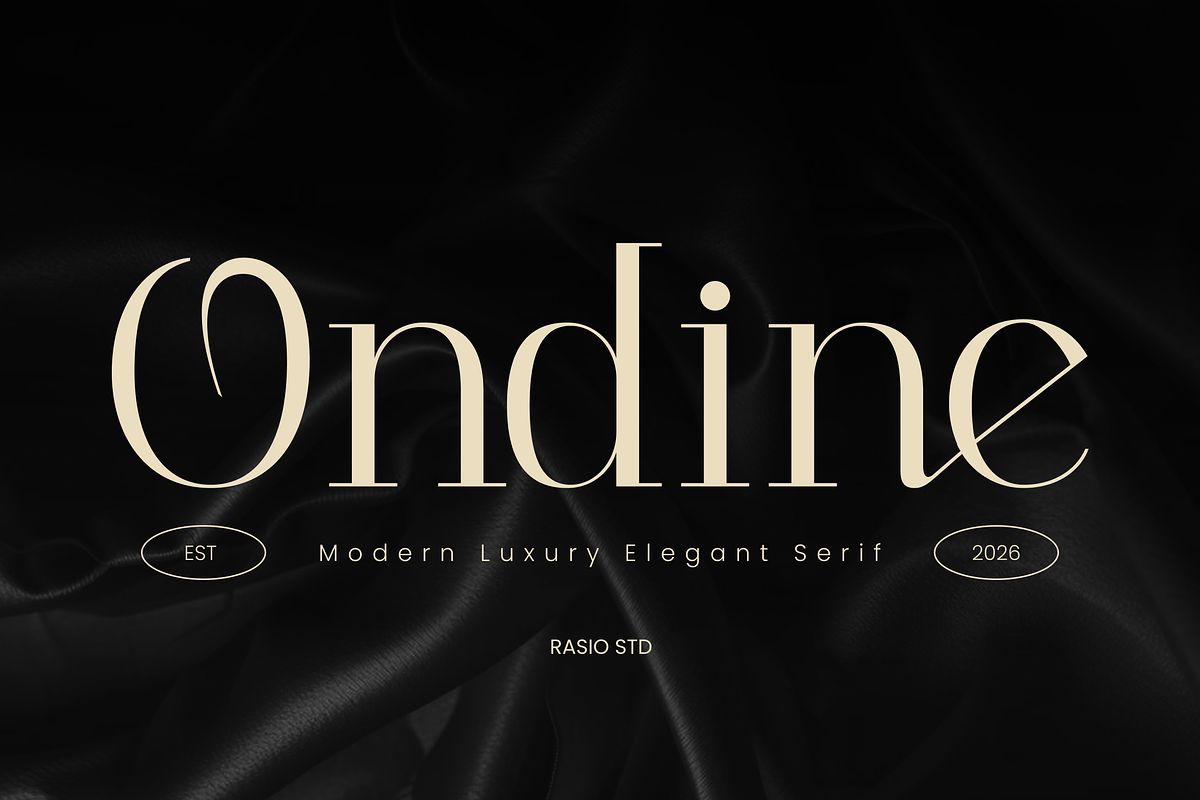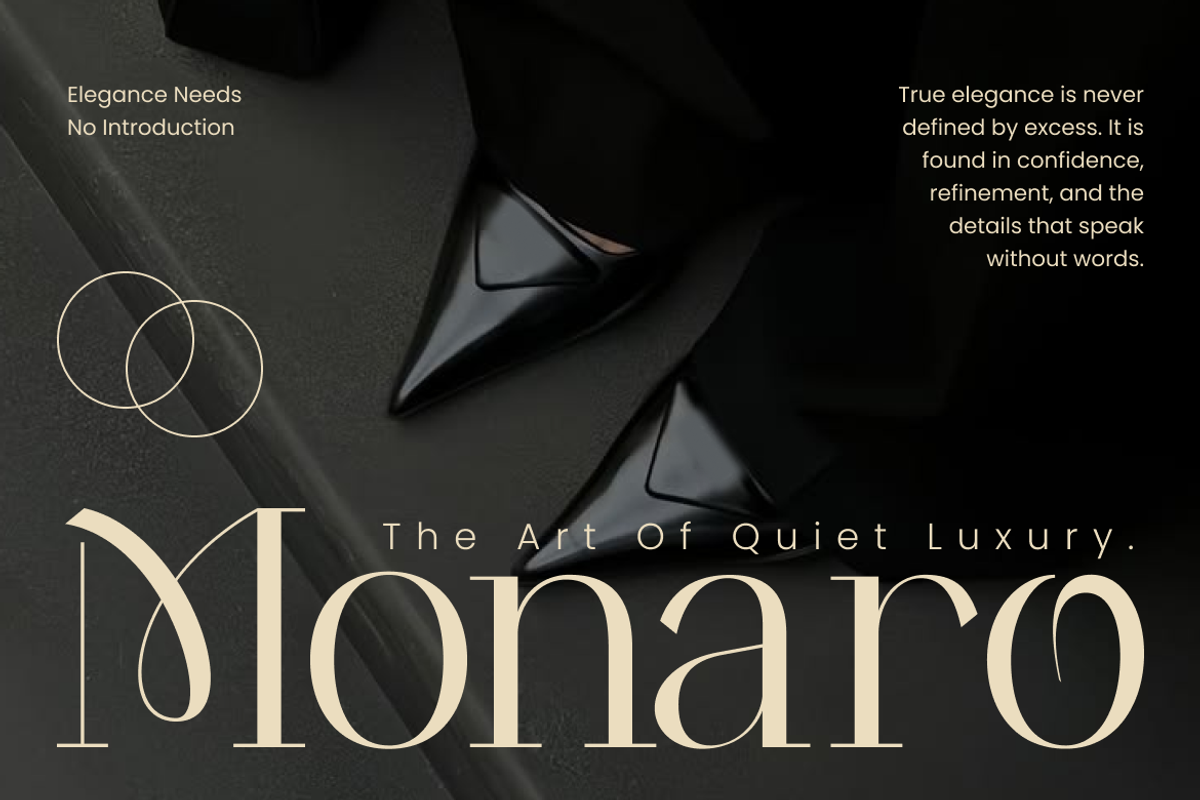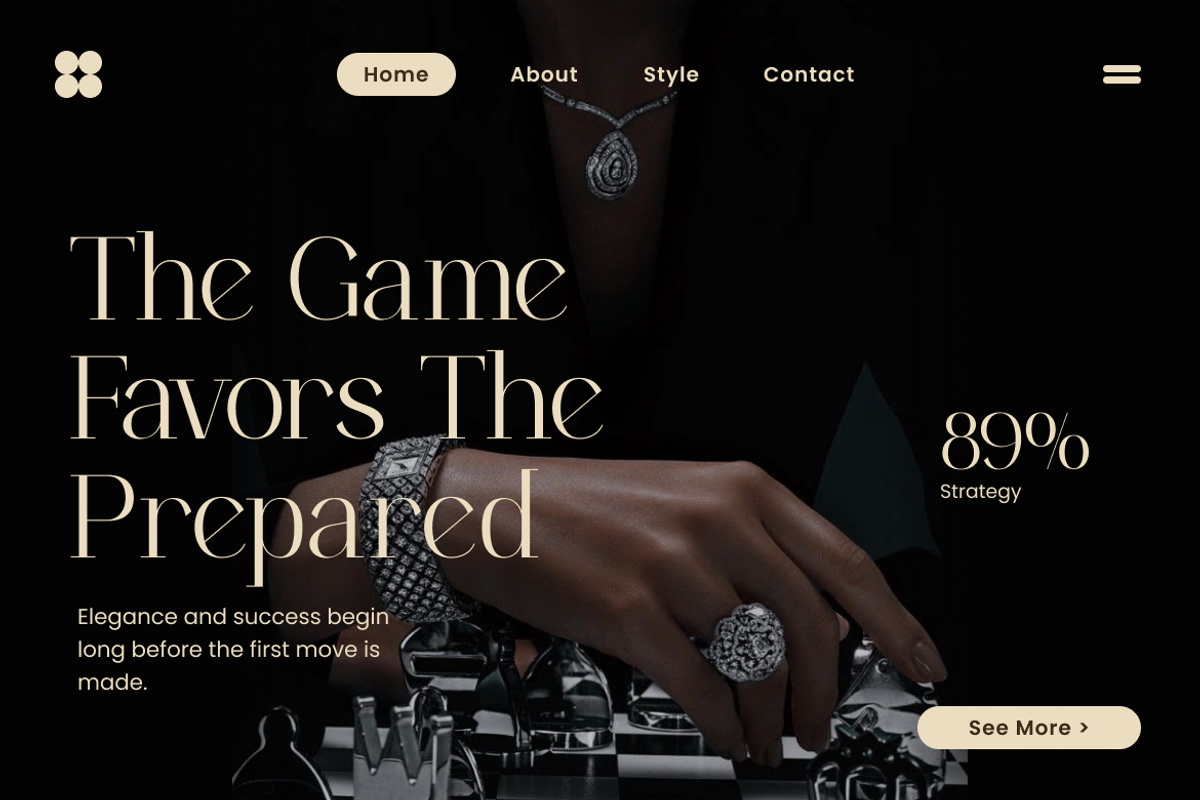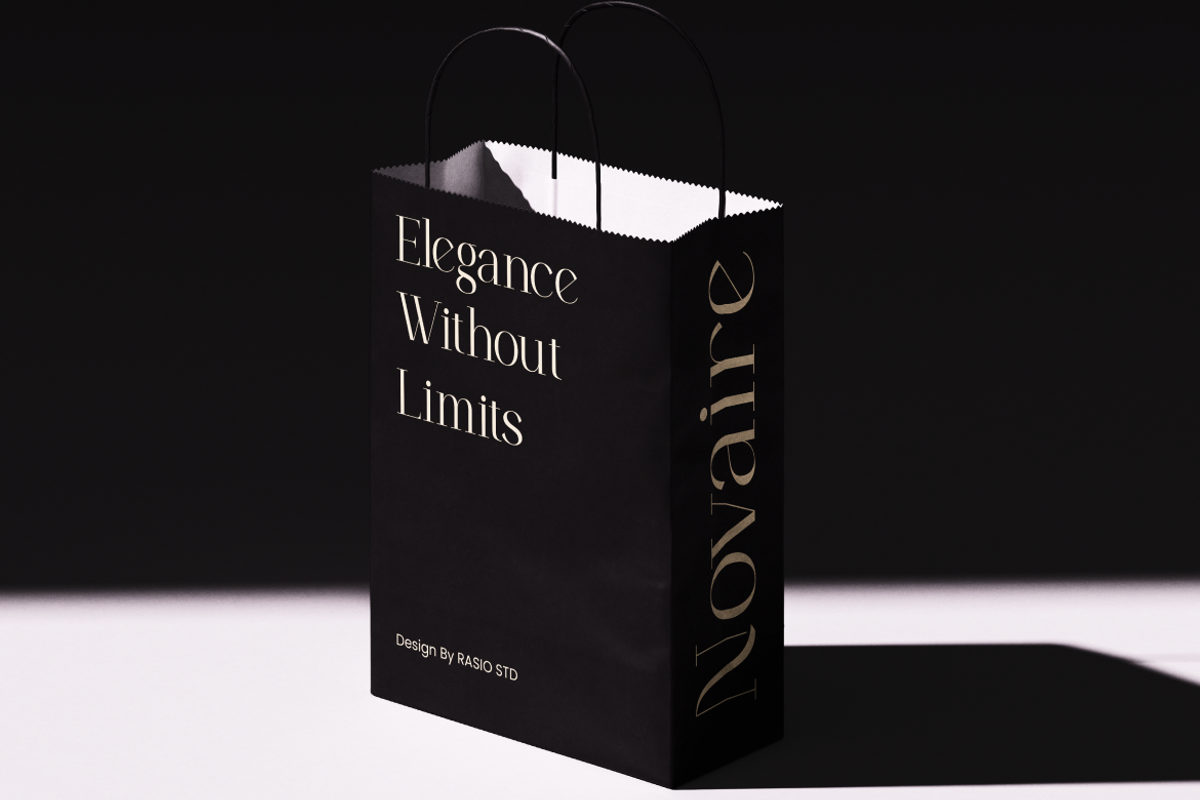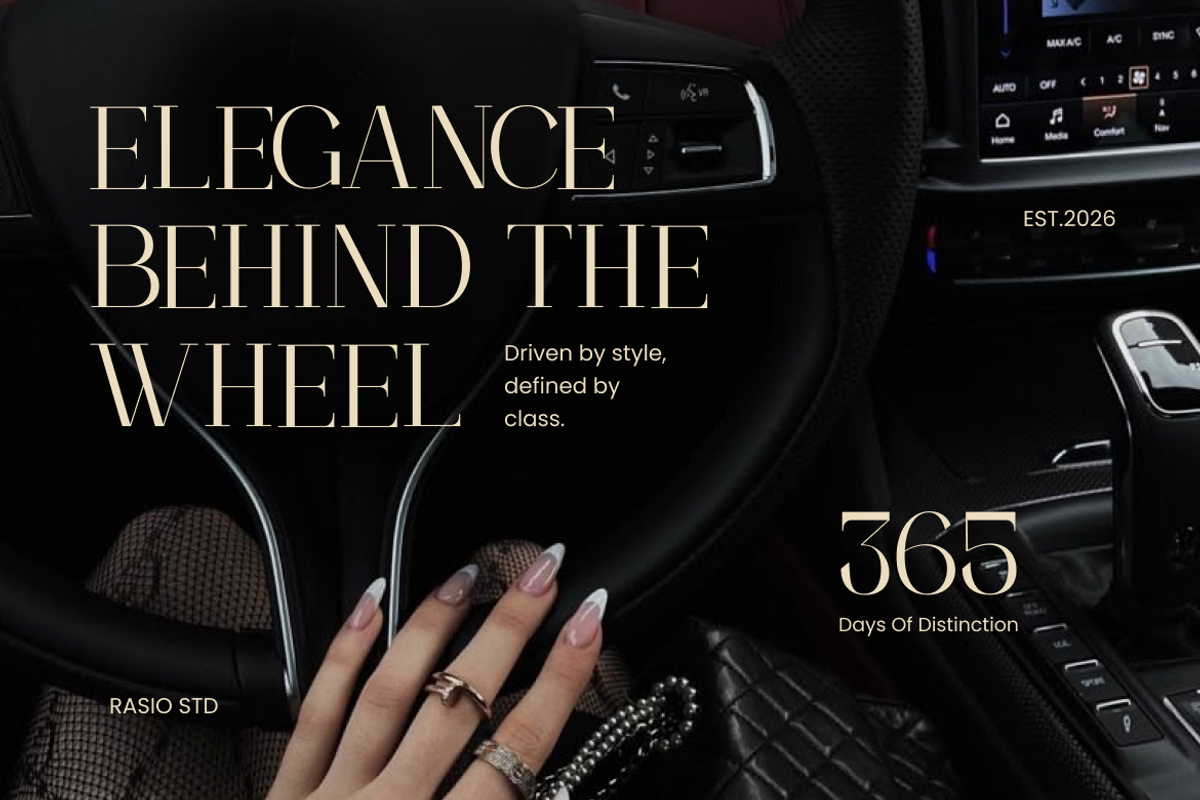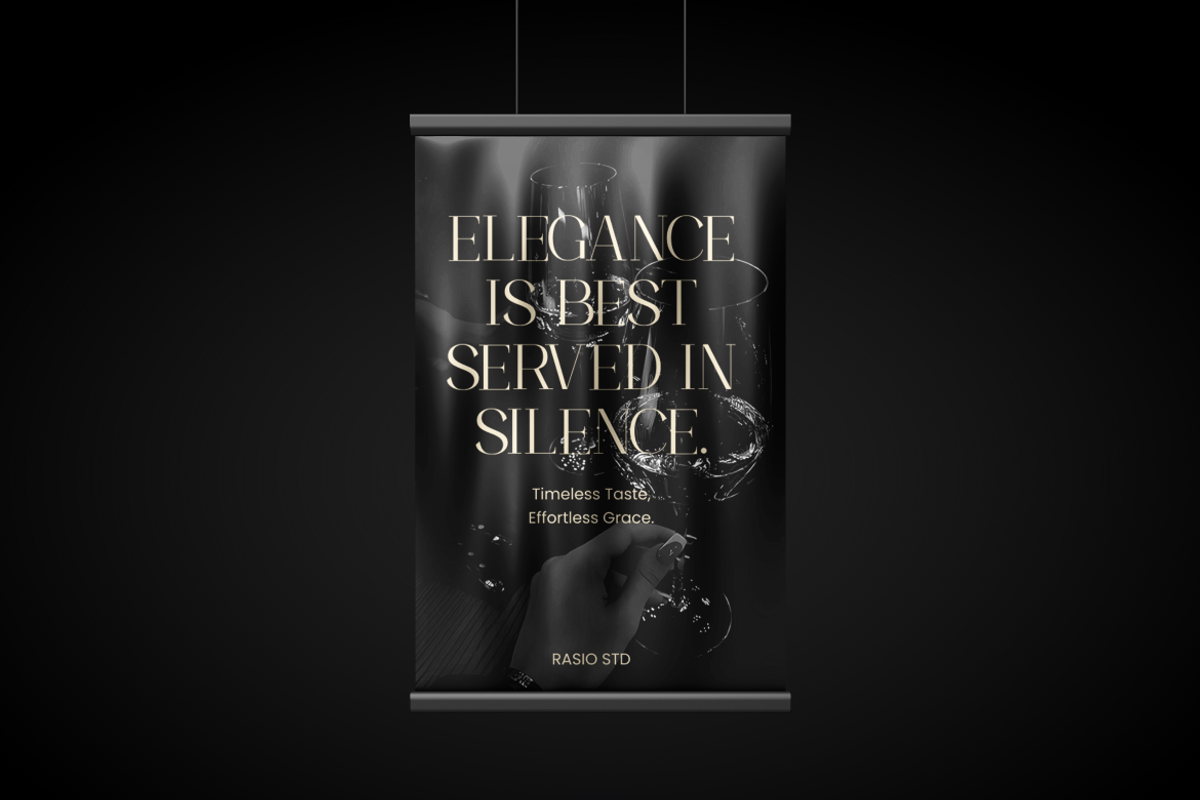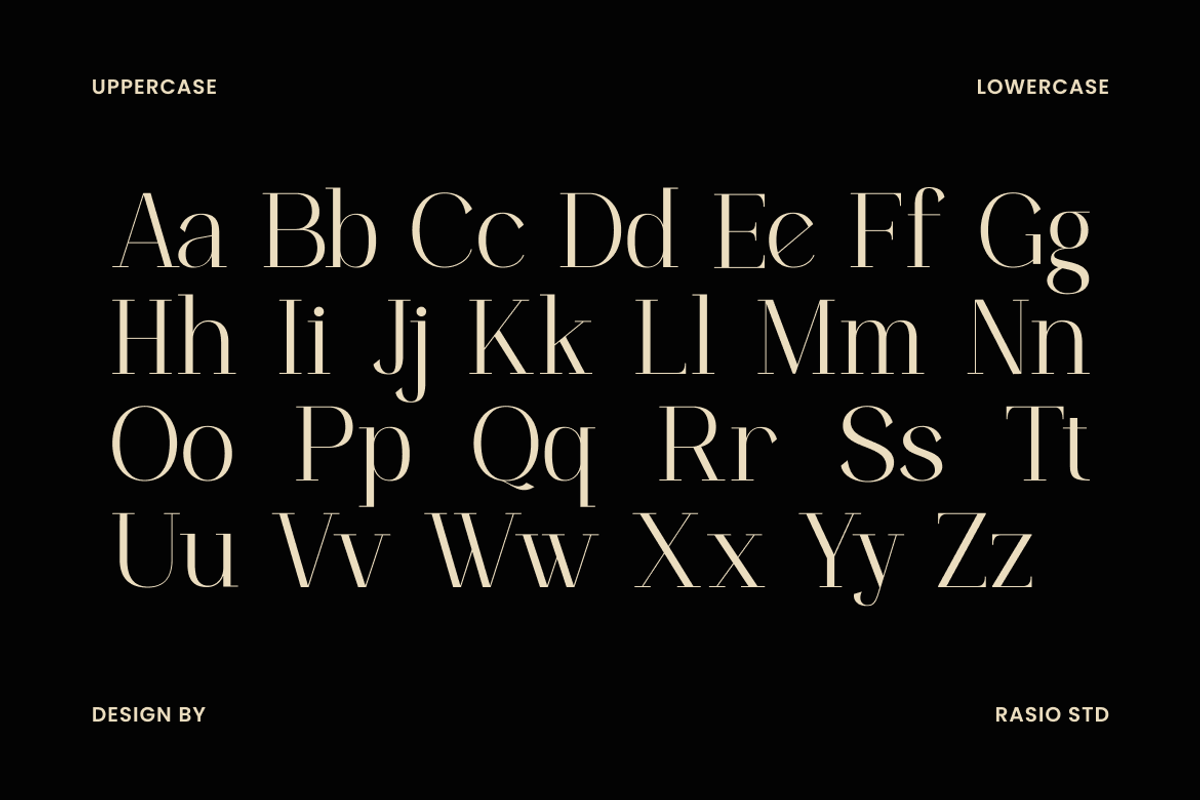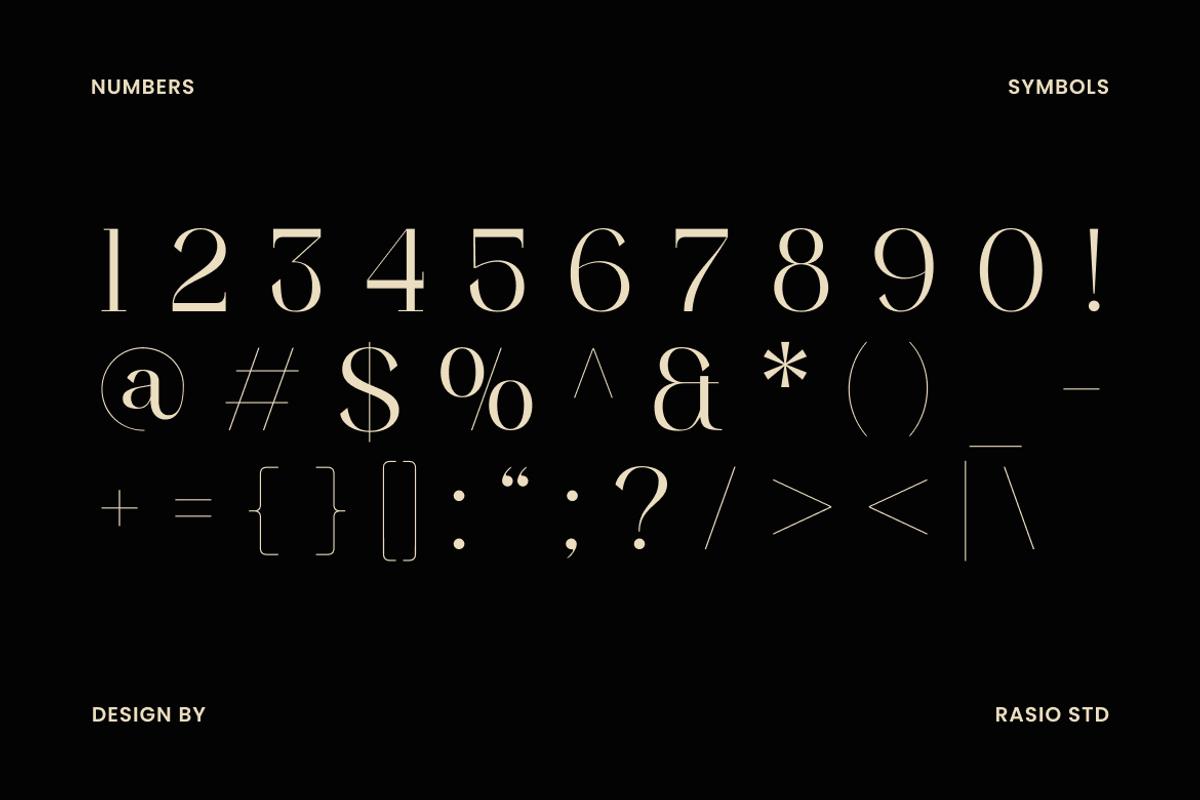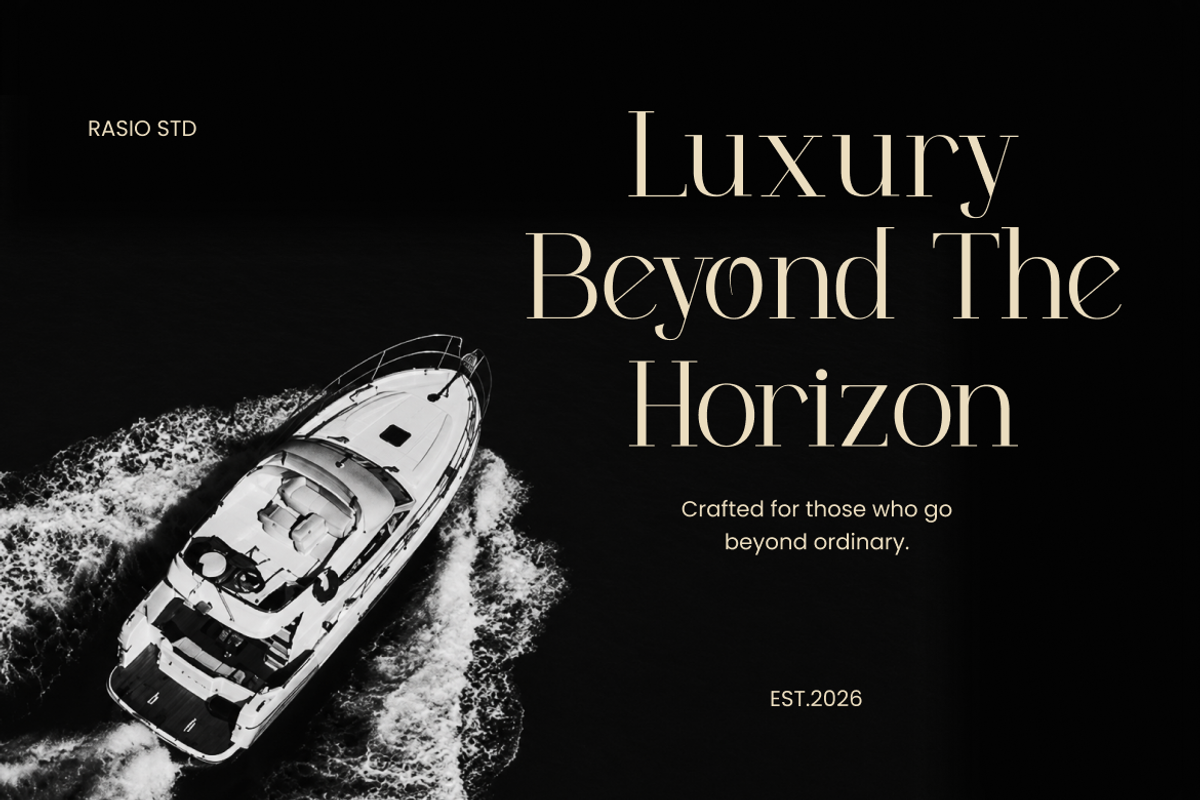
Ondine Modern Luxury Serif Font
Ondine Modern Luxury Serif Font is a refined display typeface that combines delicate high-contrast strokes with graceful proportions and sophisticated character detailing. The font features slender letterforms, elegant vertical stress, and carefully sculpted curves that create a polished and distinguished appearance. Subtle decorative touches, including unique terminals and refined character endings, introduce personality while preserving clarity and balance. Its minimalist structure allows the typography to feel both contemporary and timeless, making it highly effective for visually driven branding and editorial compositions.
Designed for premium visual communication, Ondine excels in luxury branding, fashion editorials, beauty packaging, logo design, and sophisticated marketing materials. The graceful letterforms create memorable headlines and wordmarks, while the refined details add exclusivity and character to magazine layouts, product labels, invitations, and digital campaigns. Whether used across print or digital media, Ondine delivers a distinctive typographic presence that communicates refinement, confidence, and artistic precision.
High-contrast serif construction with refined thick and thin stroke variation
Elegant elongated letterforms that create a graceful and sophisticated silhouette
Delicate curves and slender proportions for a light, polished appearance
Distinctive terminals and subtle character details that add visual refinement
Balanced vertical stress that reinforces a clean and structured composition
Luxury brand identity systems seeking a refined and distinguished visual presence
Fashion labels, jewelry collections, and beauty brands with premium positioning
Editorial magazines, lookbooks, publication layouts featuring sophisticated typography
Product packaging and labels designed to communicate exclusivity and craftsmanship
Logo design and wordmark creation enhanced by graceful serif details
Supports numerals, punctuation, and extensive symbol set
Ondine where graceful letterforms and refined details bring distinction to every project